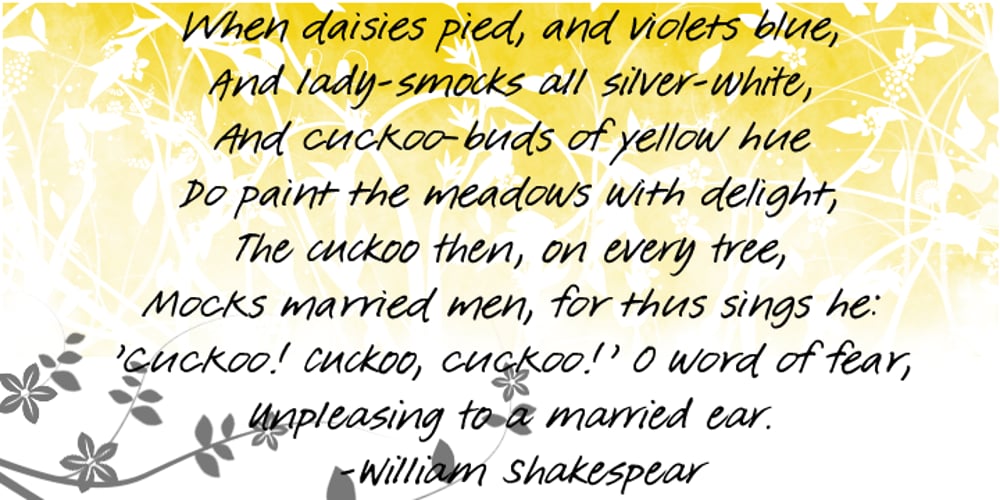
FG Kristine Font Family was designed by Ellinor Maria Rapp and published by YOFF. FG Kristine contains 3 styles and family package options. FG Kristine is a smooth flowing female handwriting that’s perfect for anything!